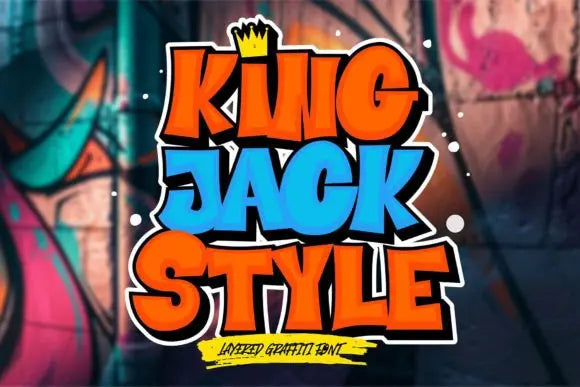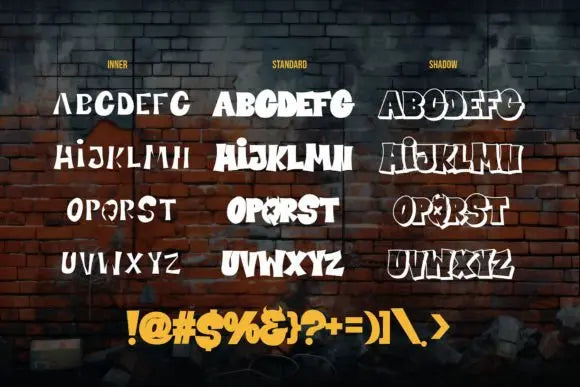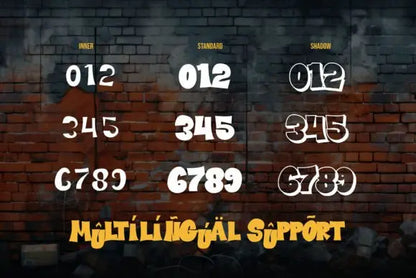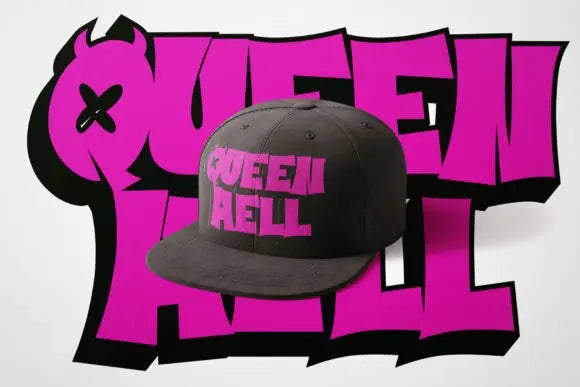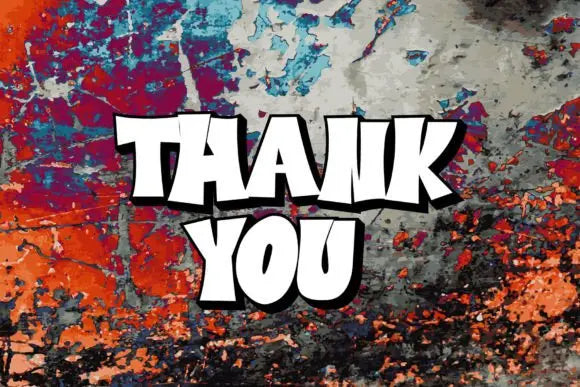
King Simple Style font
Elevate Your Designs with King Simple Style Font
Looking for a refined and modern typeface? King Simple Style Font by Handsign.Studio is a professionally crafted font that combines elegance, versatility, and readability. Whether you're working on branding, luxury packaging, social media graphics, or editorial layouts, this typeface adds a sophisticated and timeless touch to your designs.
Why Choose King Simple Style Font for Your Projects?
Designed for clarity and impact, King Simple Style Font features sleek letterforms, balanced proportions, and a contemporary aesthetic. Whether you need a bold display font or a subtle yet striking typeface, this font seamlessly adapts to different creative applications.
Key Features of King Simple Style Font:
✔ Elegant & Minimalist Design – Perfect for logos, branding, and editorial projects.
✔ High-Quality Typography – Professionally designed for clarity and versatility.
✔ Customizable – Adjust weight, spacing, and alternates to suit your needs.
✔ Ideal for Digital & Print – Works beautifully across various creative applications.